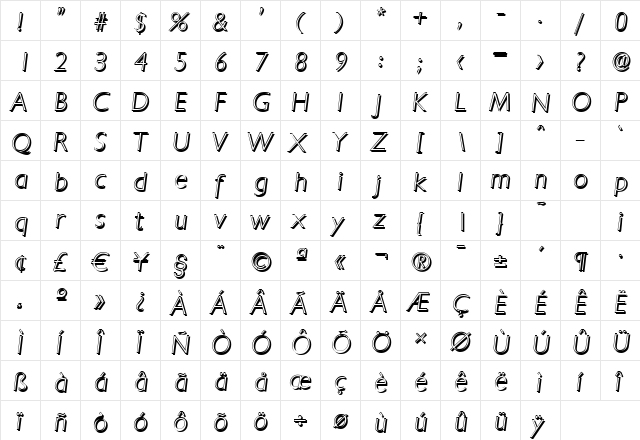
DavidBeckerShadow-Xlight Italic Font Preview
Design Context for DavidBeckerShadow-Xlight Typeface
DavidBeckerShadow-Xlight brings ornamental detail and strong personality to headlines and identities, where visual impact matters more than quiet functionality. The dynamic lean of this cut emphasises speed and emphasis in any layout. Its slender proportions lend an understated elegance to any composition.
Font Pairing: Pair with a clean neutral sans-serif for body copy to let DavidBeckerShadow-Xlight's character lead without overwhelming the composition.
Pro Tip: Use DavidBeckerShadow-Xlight exclusively at display sizes — it was designed to be seen, not read at length. Let a neutral companion handle body copy.